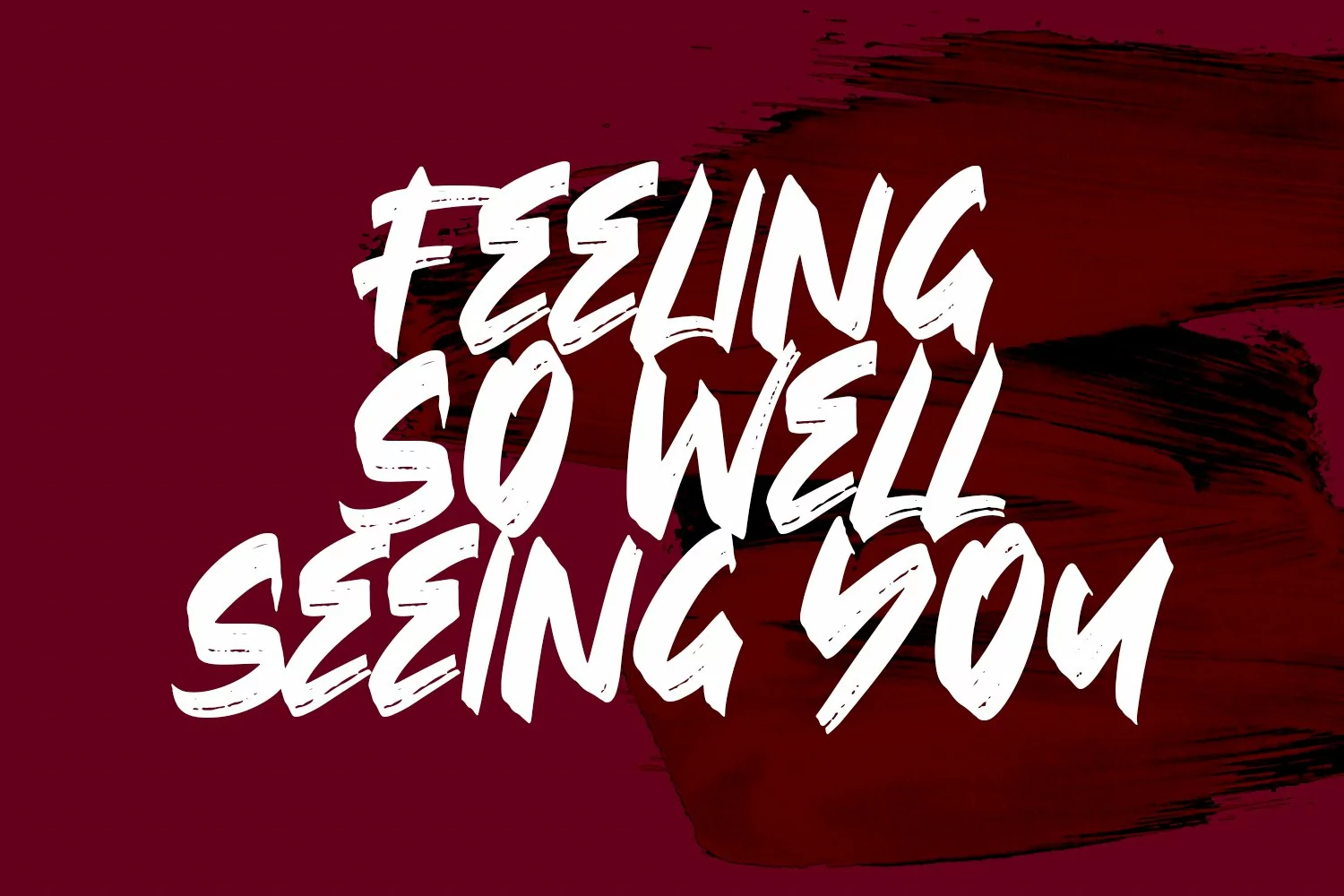
Overides is a masculine handwritten SVG font. With bold bitmap brush stroke, fun character with a bit of ligatures and alternates. To give you an extra creative work. Overides font support multilingual more than 100+ language. This font is good for logo design, Social media, Movie Titles, Books Titles, a short text even a long text letter and good for your secondary text font with sans or serif. Make a stunning work with Overides font.